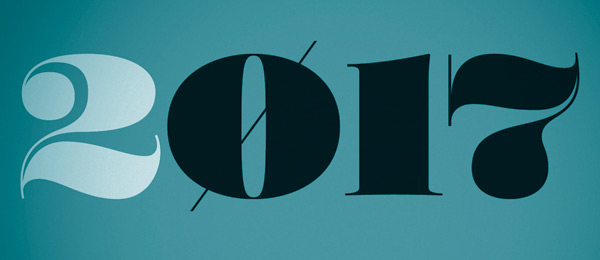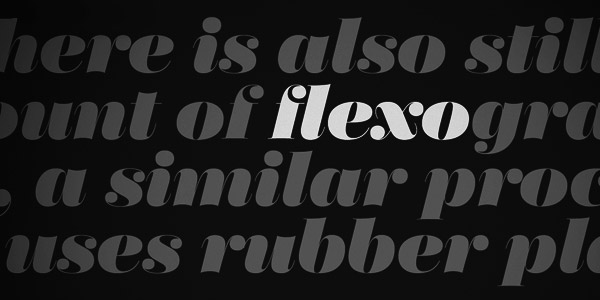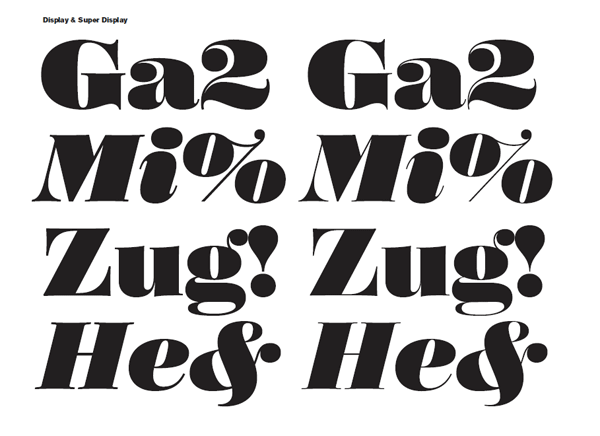
Poster – Serif Display Type Family.
Poster is a true display font family. This serif typeface by Íñigo Jerez (Font Publisher: Type-Ø-Tones) is a recreation of Bodonian/Didot. Poster has a bold, dominant and distinctive shape combined with a classic charm. This font family is a great choice for flashy headlines, highlighted text areas or as the name says for eye-catching posters. The entire font family consits of 8 styles: Poster, Poster Display, Poster Monster, and Poster Display Monster plus matching Italics for each style. This desktop type family is available as OpenType font.